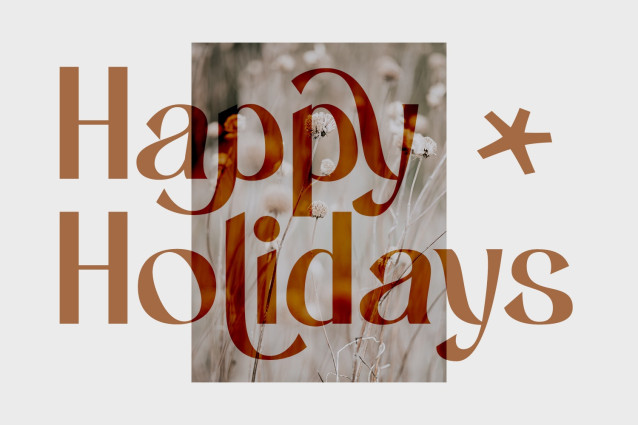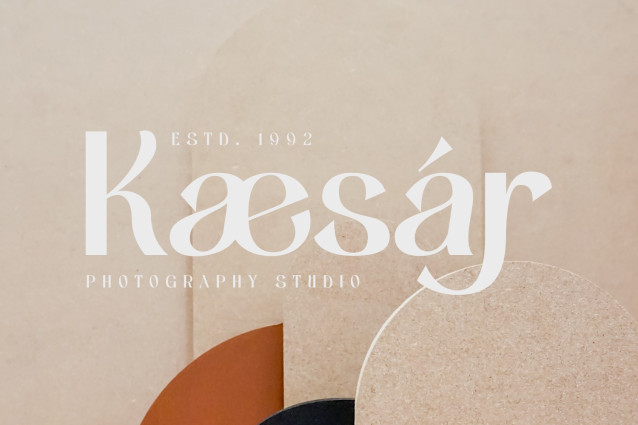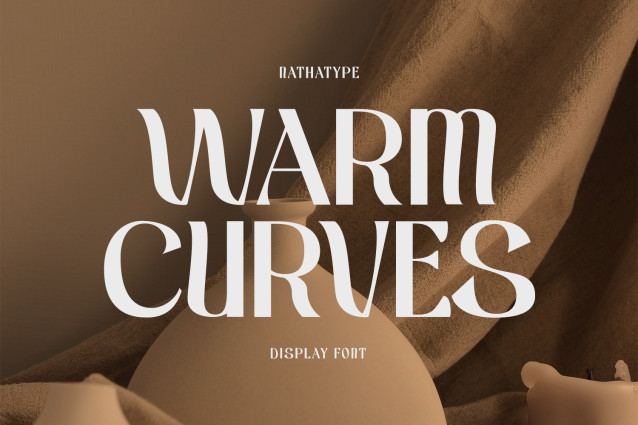
Warm Curves Font
Warm Curves Font is a display serif font to meet your needs. This elegant, modern, legible display serif font is perfectly applicable to formal, serious contents. It looks more stylish and has its own protruding characters to strengthen the points delivered. Furthermore, this display serif font is legible due to the thick, regular serif to ease readers to recognize every letter accurately. For that reason, you can use this font for any text length and size due to its great legibility. Also enjoy interesting features available in this font.